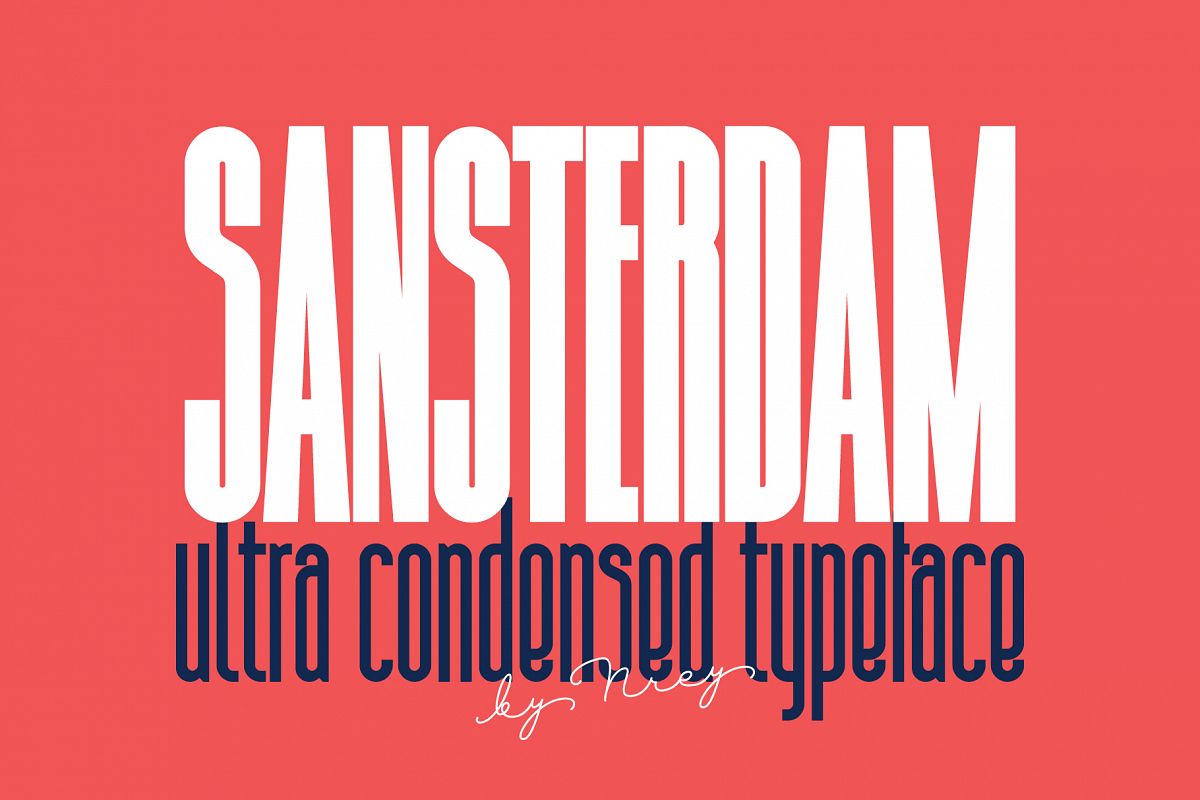
Sansterdam Ultra Condensed
**Introdusing Sansterdam ultra condensed modern grotesque font family.**
- Sansterdam Medium Condensed
- Sansterdam Medium Condensed Outline
- Sansterdam Bold Condensed
Font looks amazing as alone words and as full text blocks. Also it good for bright captions and logos.